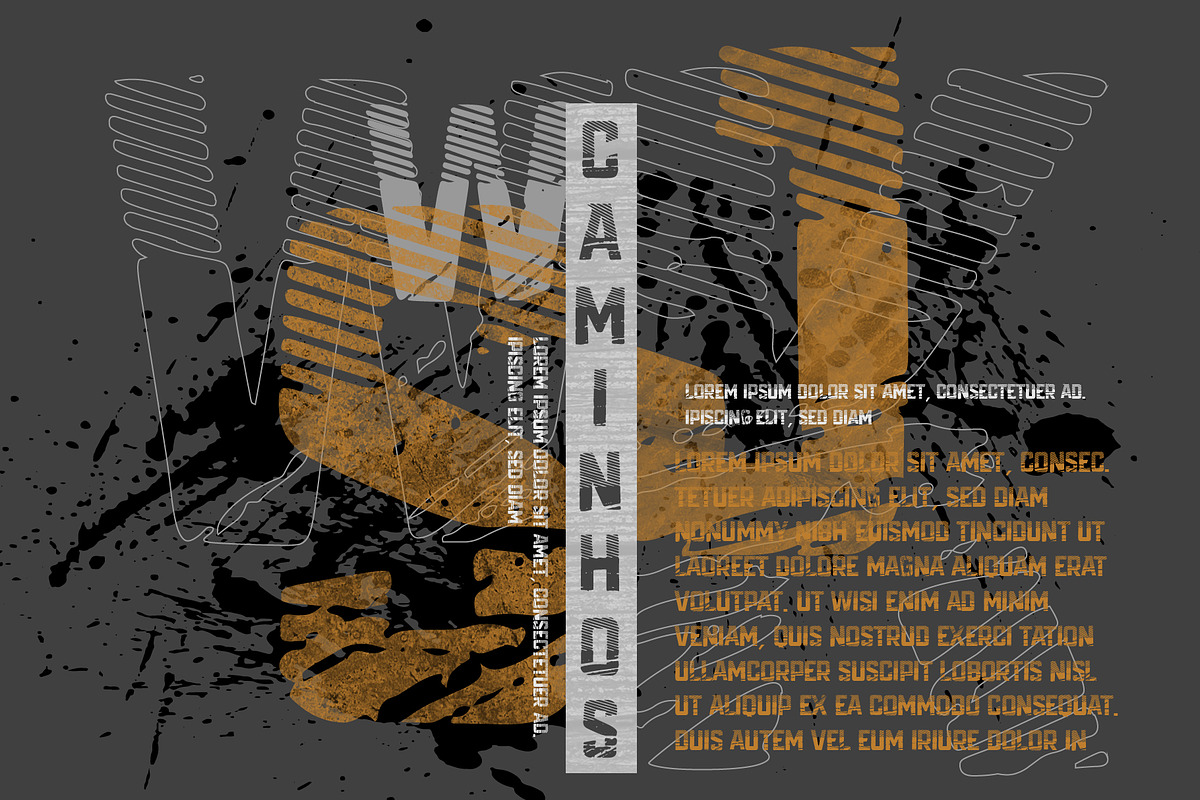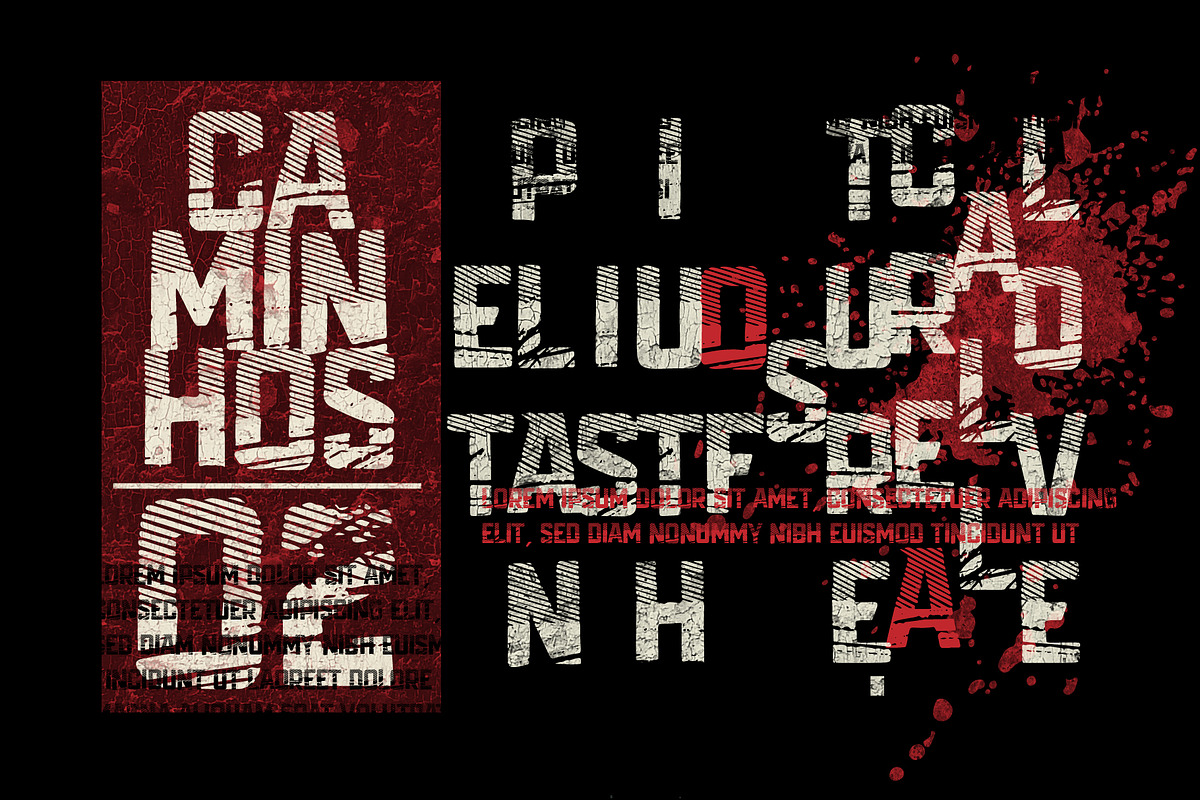
Caminhos
Caminhos is a beautiful font, good to sports or hardcore arts, giving a modern feel and strengh in your project. Use this font without moderation, and see how its will look great and make your projects a success to you and your customers. Buy and have fun!